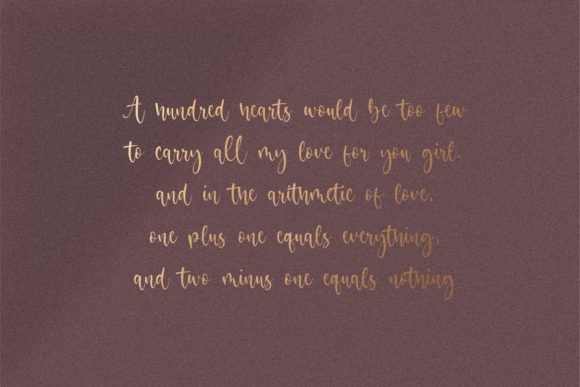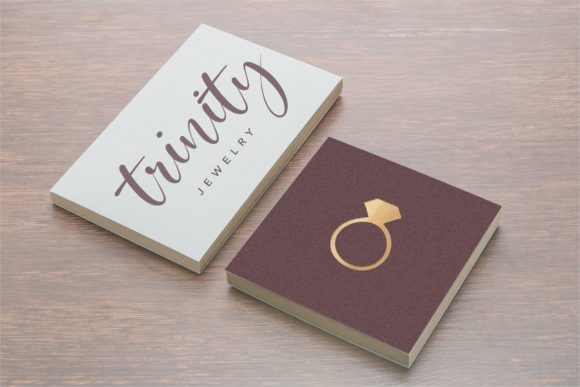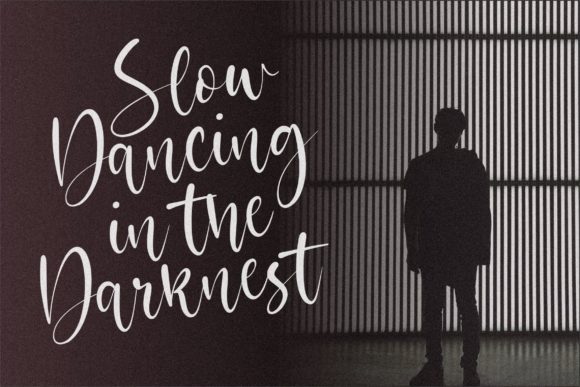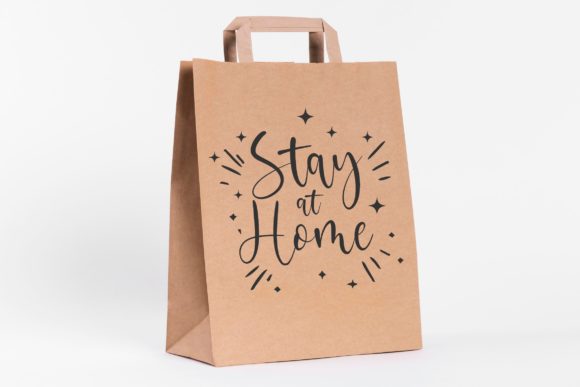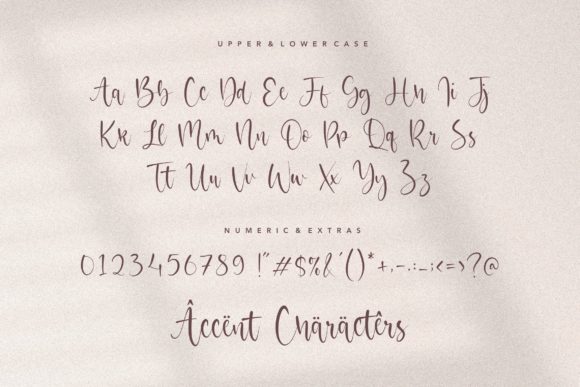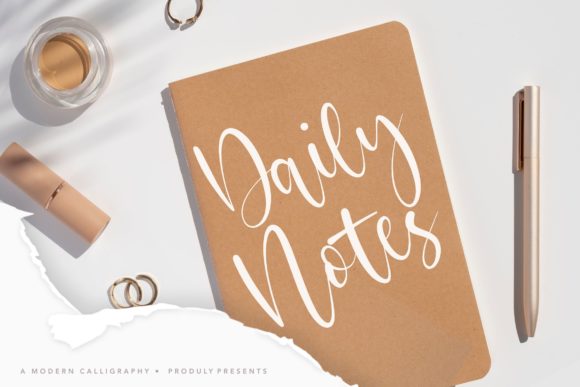
Introduction to Oriental Dream Font Font
Fonts play a crucial role in design, and the Oriental Dream Font font is a typeface that brings both character and versatility to any project. Whether you’re working on a branding project, a website, or a print design, the Oriental Dream Font font offers a unique style that can elevate your work.
Oriental Dream is a great scrip font.
It features a varying baseline, smooth lines, gorgeous glyphs and stunning alternates Get inspired by its elegant look and create cute designs.
The Oriental Dream Font font is more than just a typeface – it’s a design tool that helps you communicate your message with style and clarity. Its unique character set and versatile design make it suitable for a wide range of applications, from elegant invitations to bold headlines.
With its carefully crafted letterforms and balanced proportions, the Oriental Dream Font font ensures readability and visual appeal across all mediums.
What makes Oriental Dream Font font special?
The Oriental Dream Font font stands out with its unique design, exceptional readability, and versatility across various design applications.